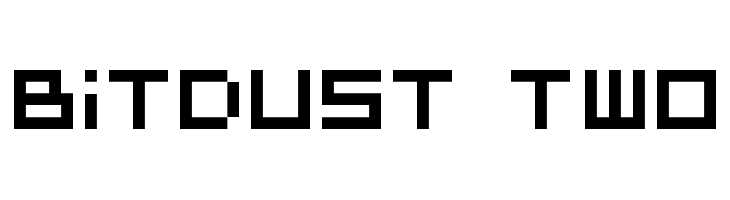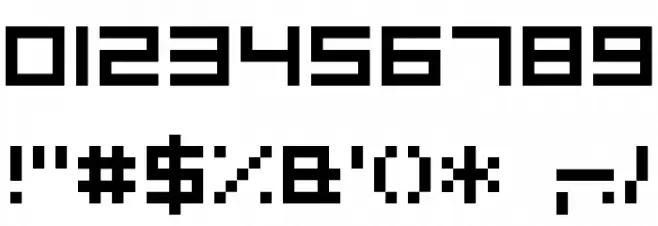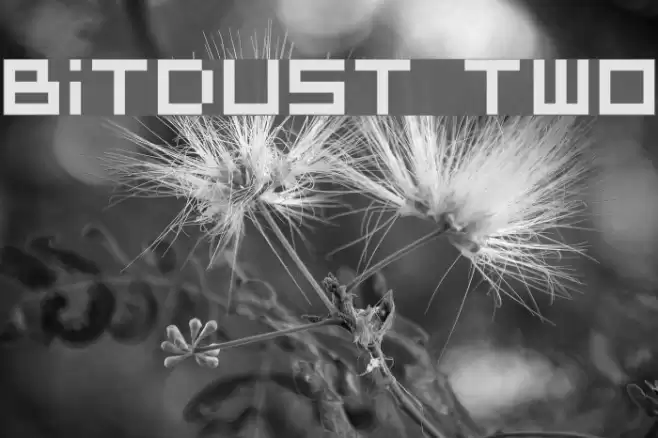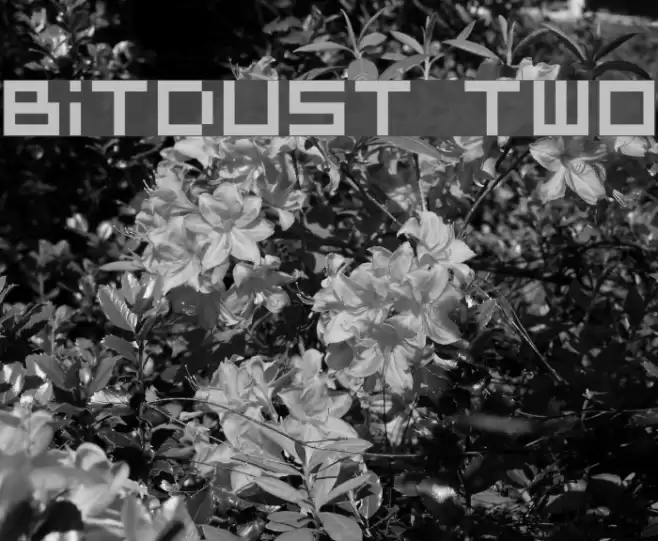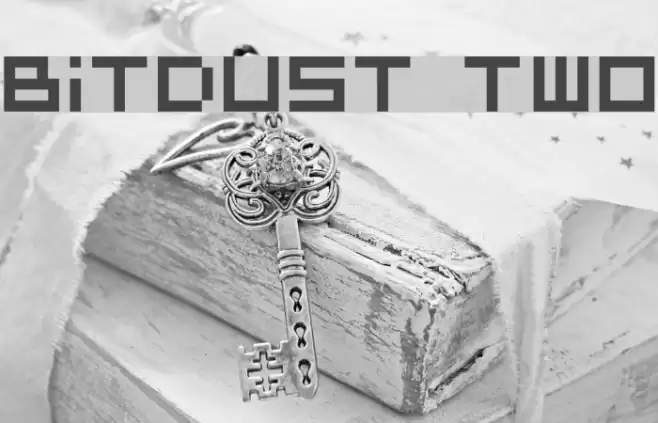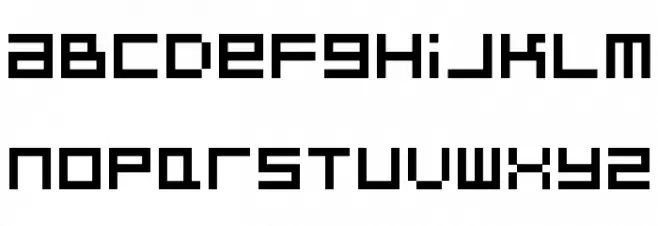
BitDust Two Font
BitDust Two Description
This font features a bold, geometric design with a pixelated, block-like appearance. Each character is constructed with uniform thickness, creating a cohesive and modern digital aesthetic. The uppercase and lowercase letters maintain a consistent height, contributing to a monospaced feel. The numerals and special characters follow the same design principles, ensuring a harmonious look across all glyphs. The font's style is reminiscent of early digital displays and video game graphics, making it ideal for projects that require a retro or tech-inspired theme. Its clear and legible form makes it suitable for both display and text purposes, though it shines in larger sizes where its unique characteristics can be fully appreciated.
| Use Case | Headlines, Logos, Digital displays |
| Proposed Projects | Ideal for video game design, tech-themed branding, digital art projects, and retro-style posters. |